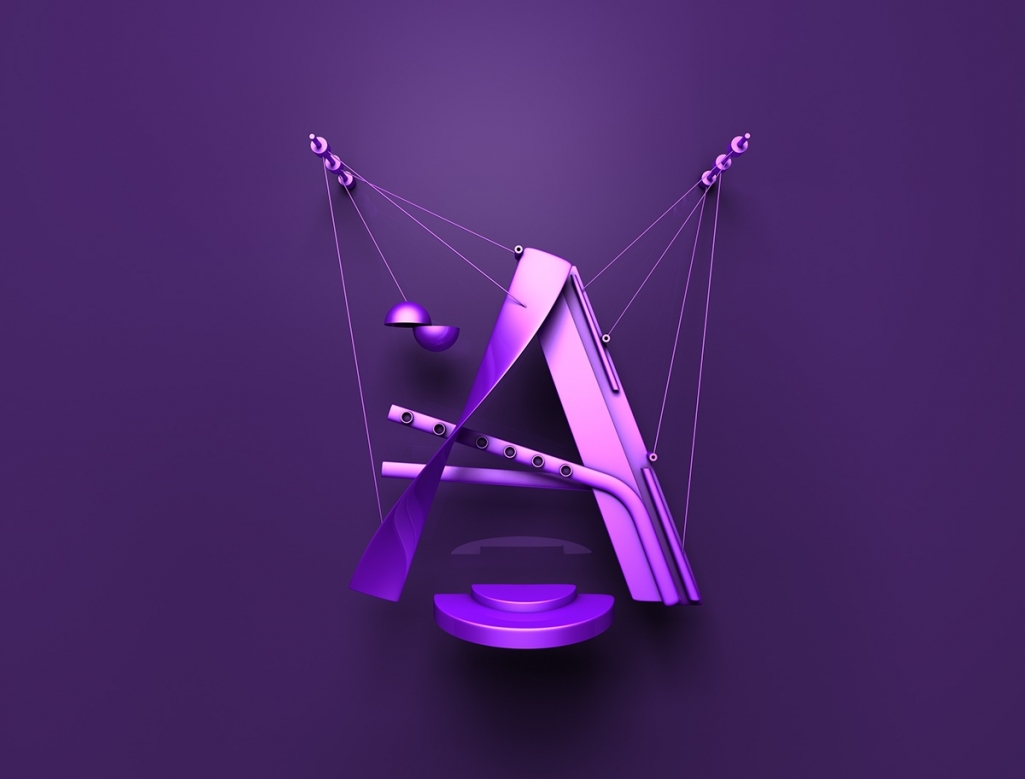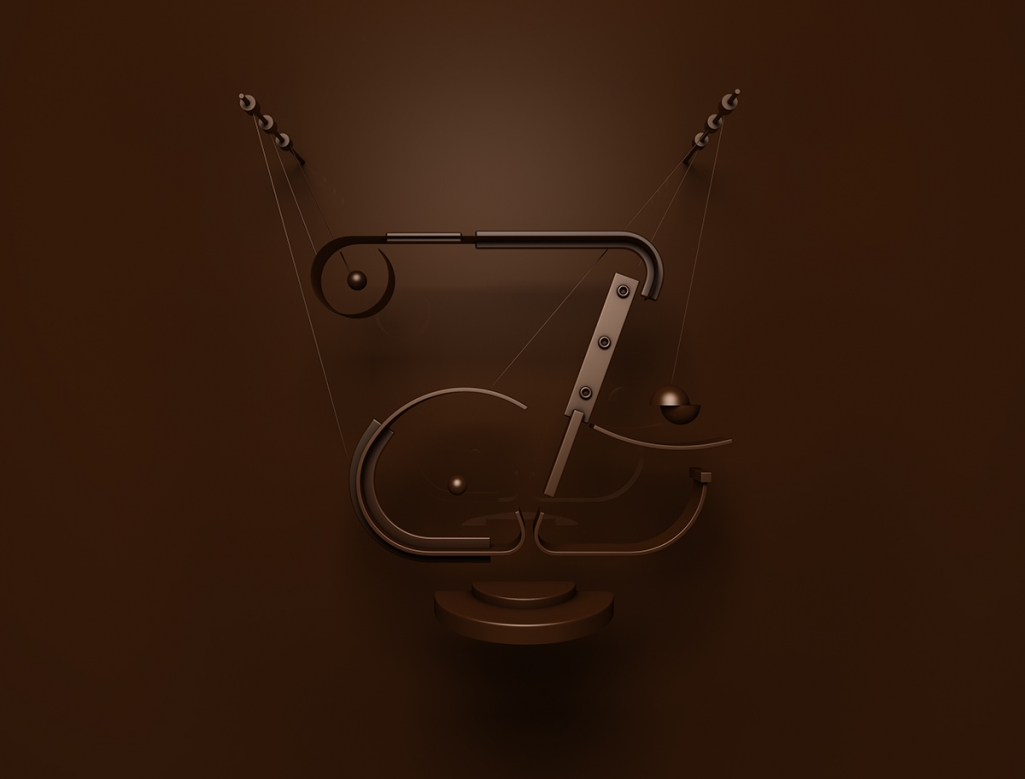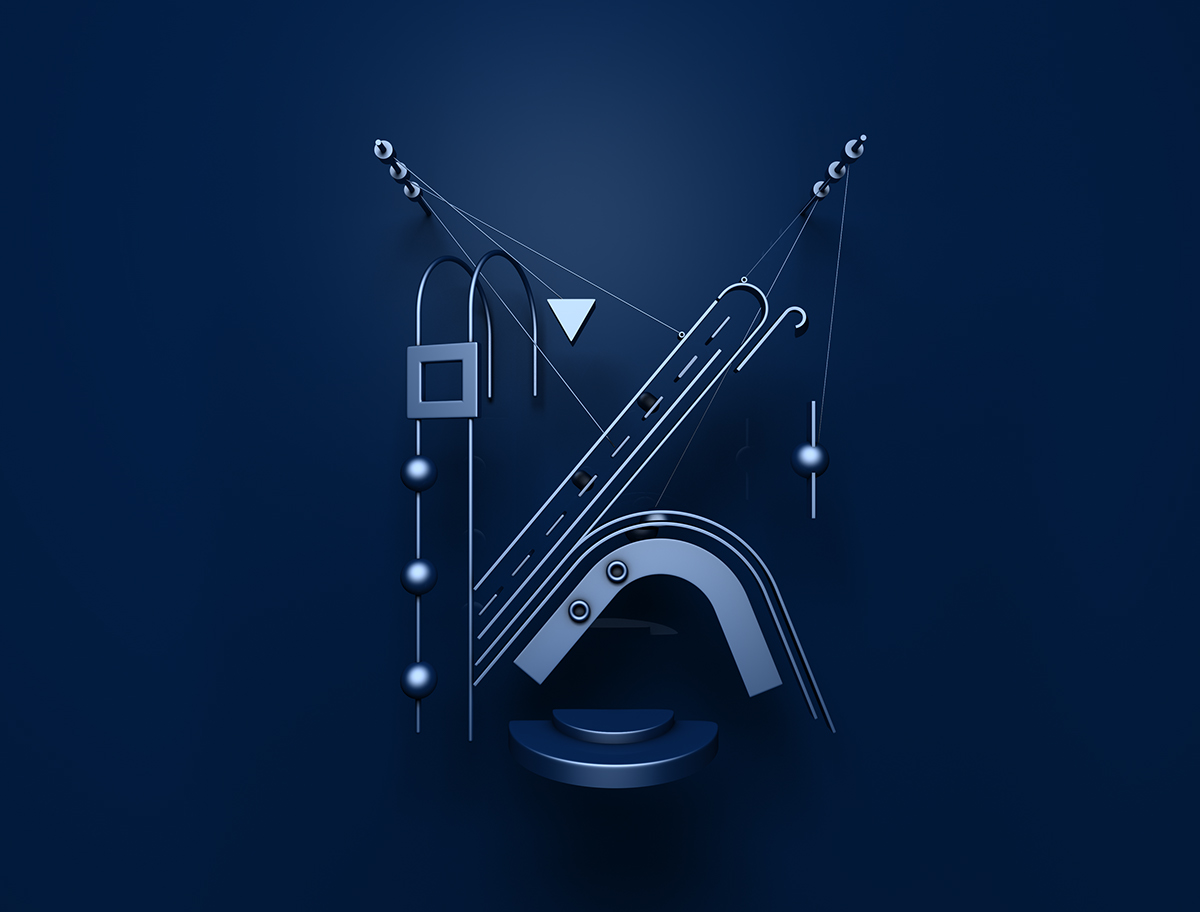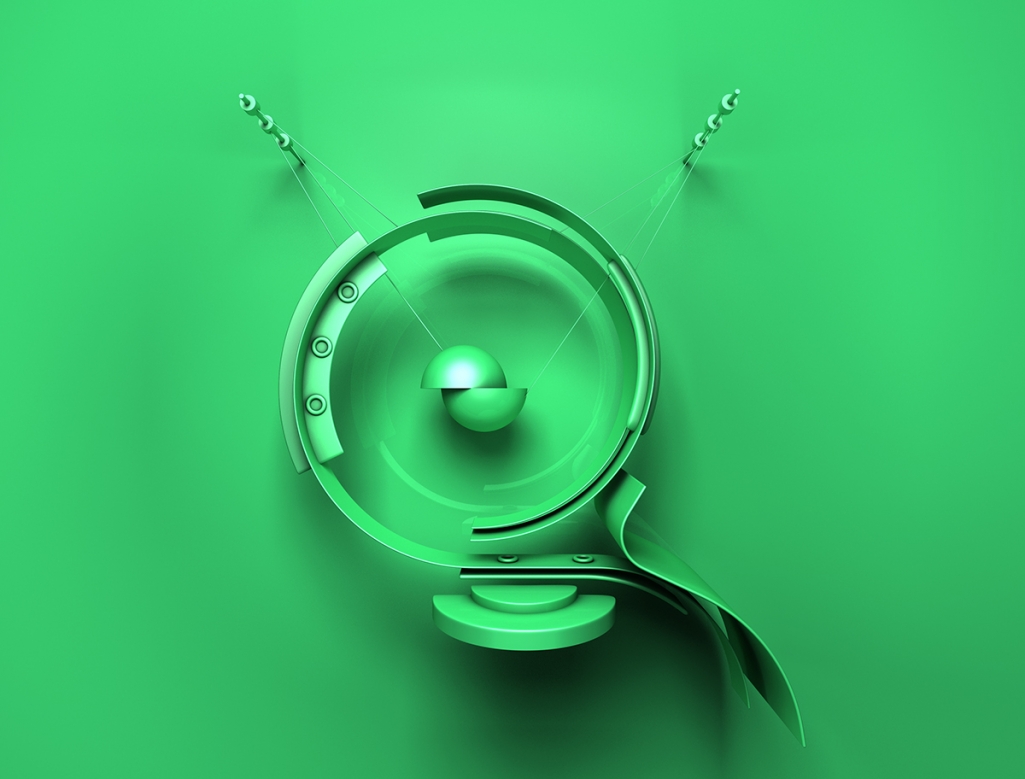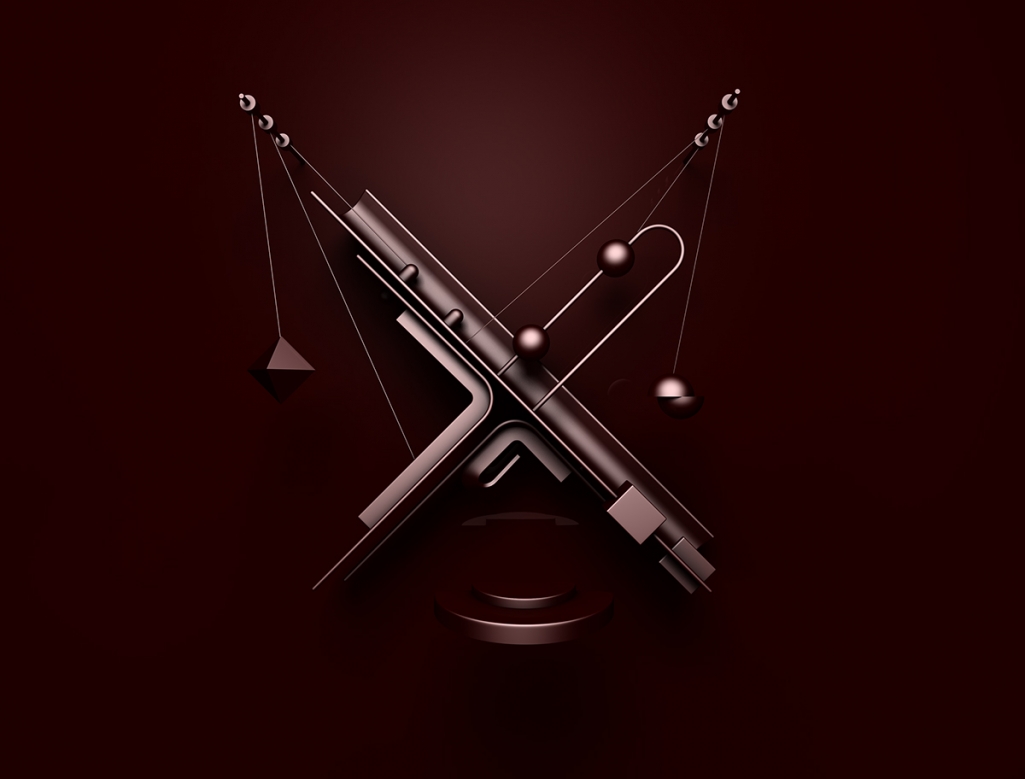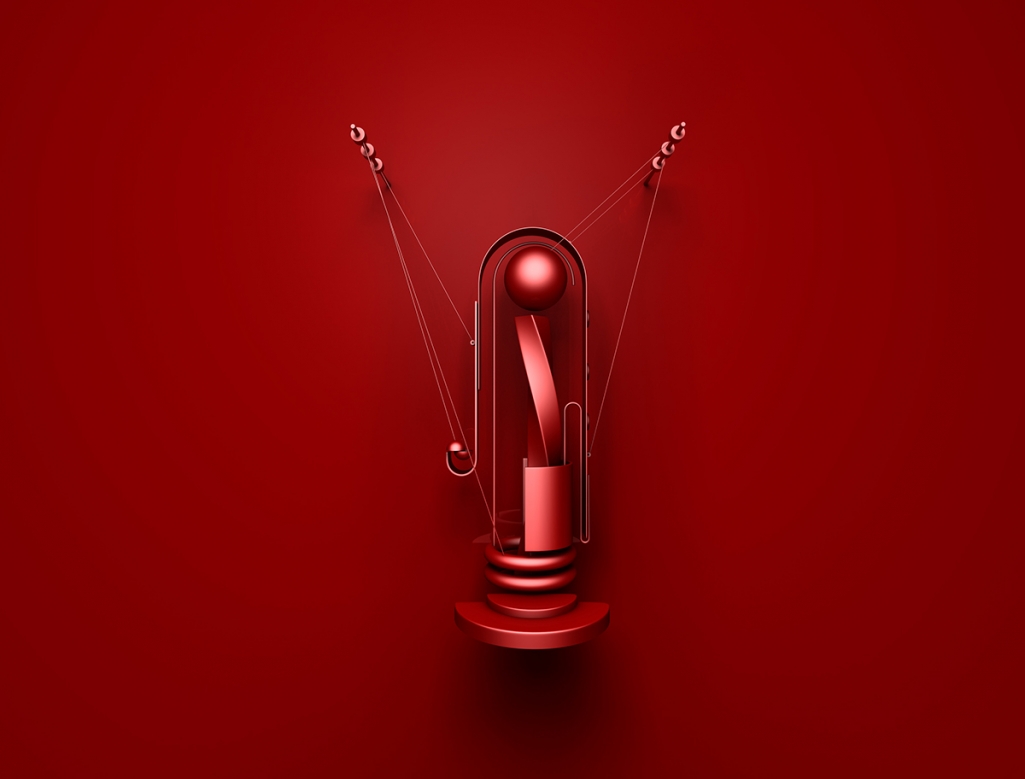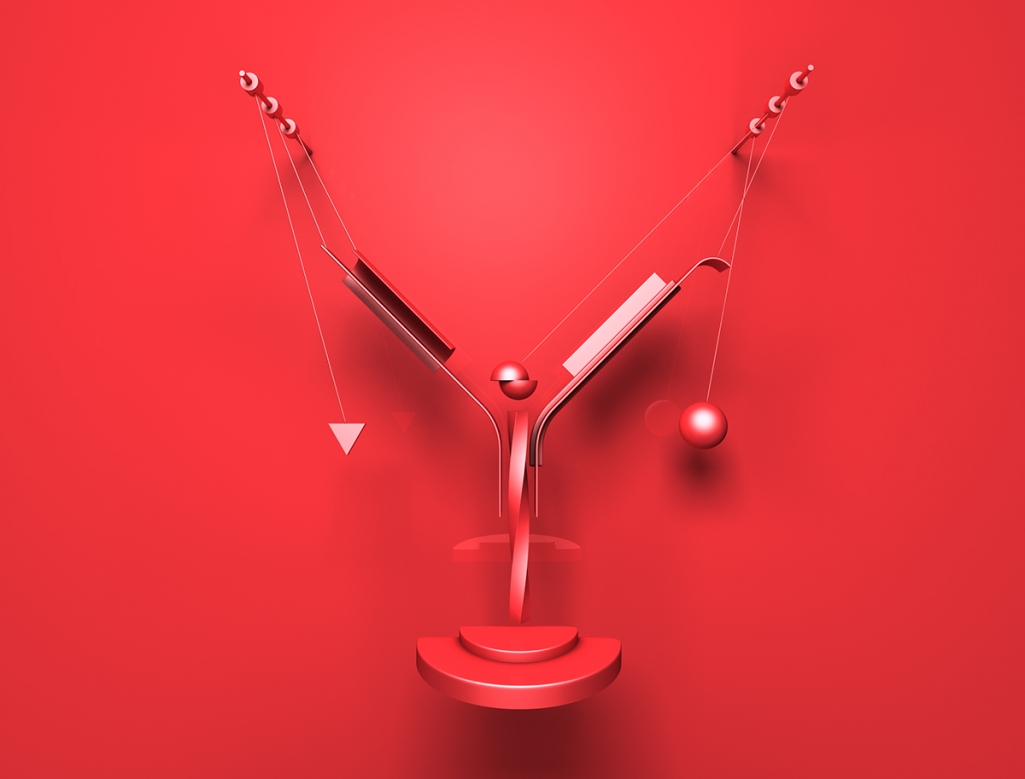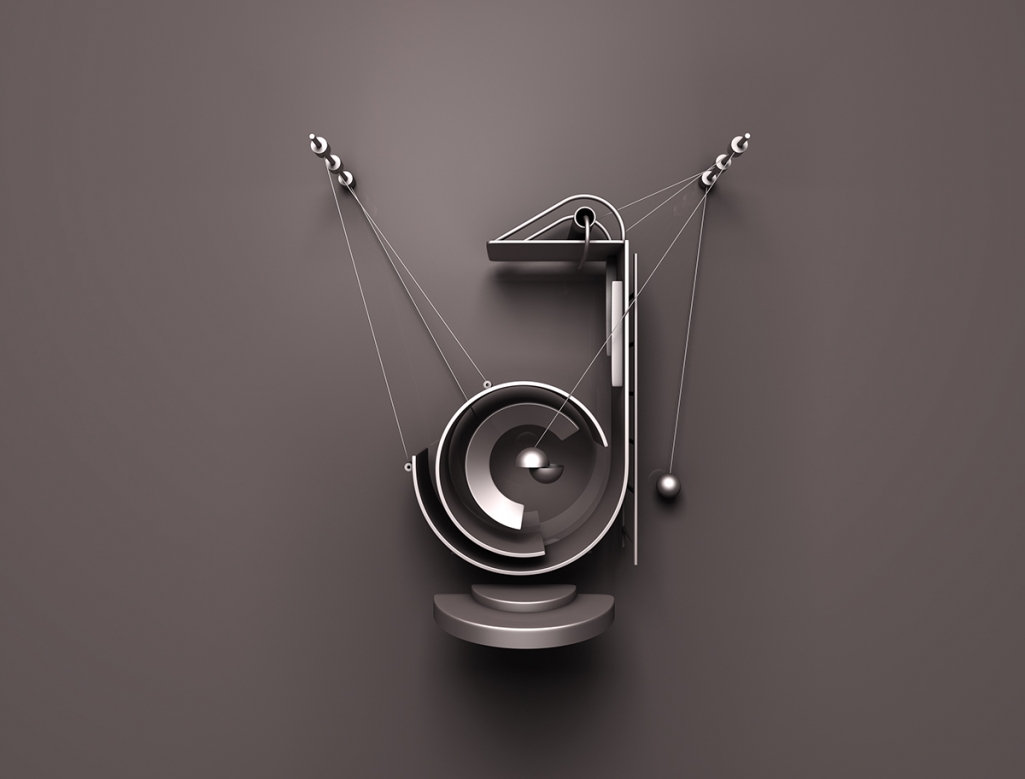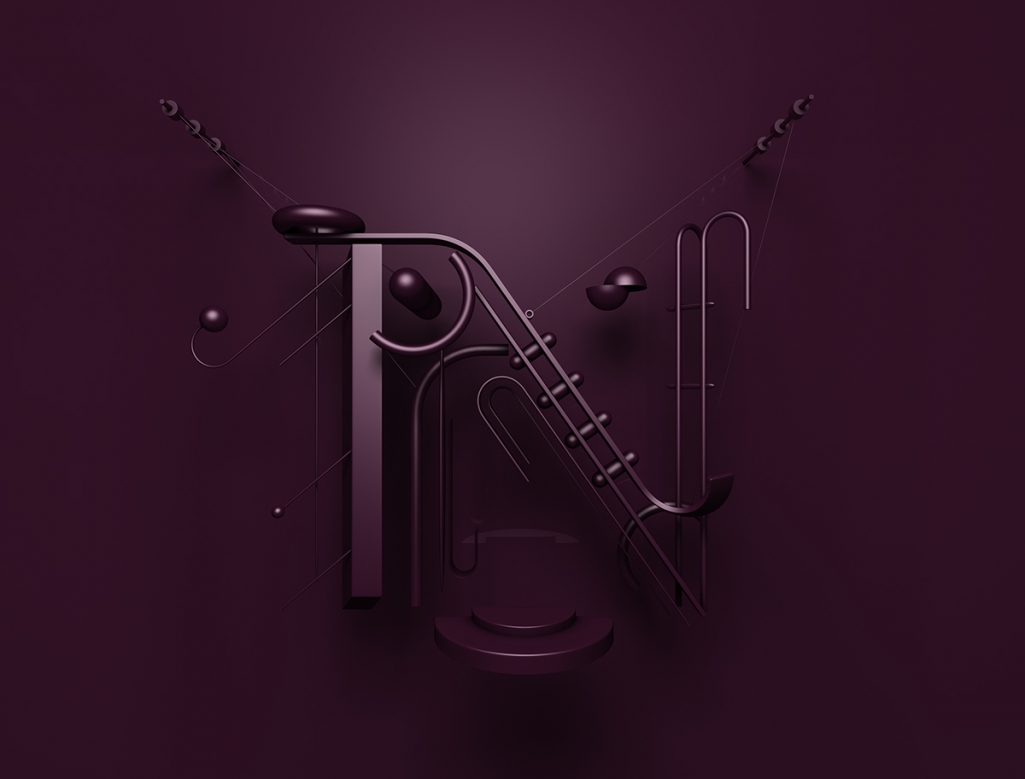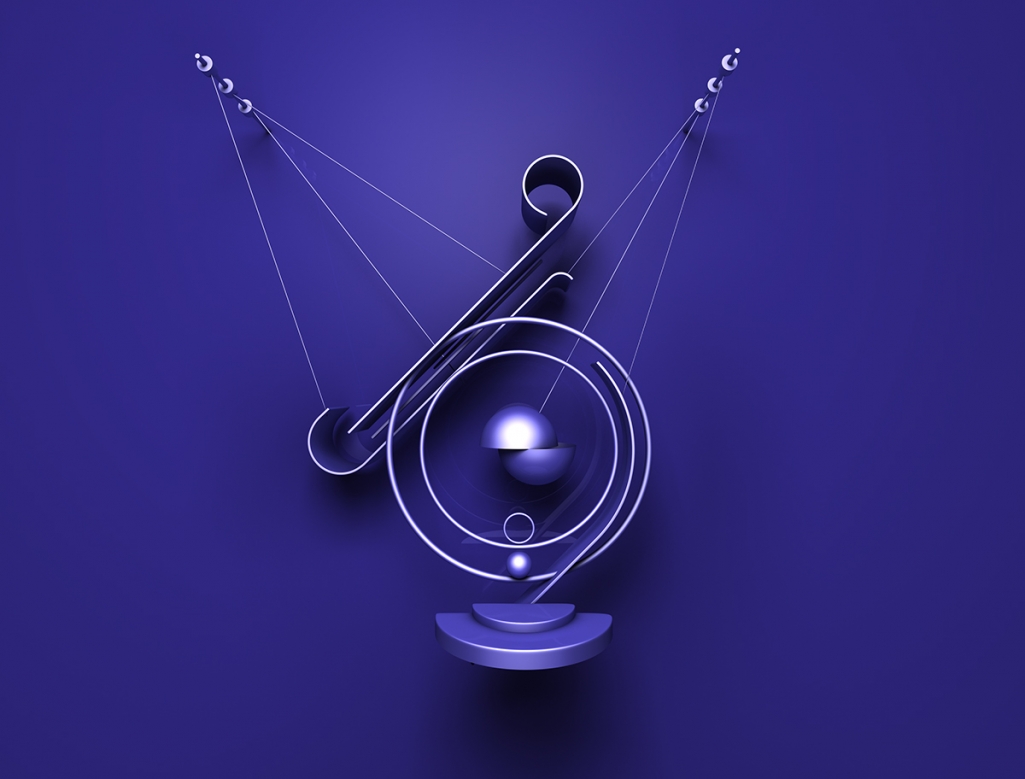
Typeface; a set of letters, numbers, etc., that are all in the same style and that are used in printing. This includes the classic font families ie. Garamond or Helvetica but also the more artistic, freehand or digitally creations ie. Shape by Jaroslav Hach. The right distinction and terminology of typography is often disputed, and I promise to dive deeper into the subject at another time. But now, I’d like to turn your attention to the masterfully created, unique and most of all, fun abstract typeface full of shapes and textures.
Running his own design studio Fresh Mill in Prague, Czech Republic, Jaroslav Hach specializes in web design, digital art, 3D illustration, and typography, working with a global client base. With a strong eye for detail and color, Hach creates dynamic designs with a flair for boldness and drama. Always working on personal projects to develop and train his personal style, he continuously builds on his set of skills. With an obvious interest in typography and typeface design, it was a hard choice which projects to feature. But his latest alphabet series Shape won me over with its clean and detailed look. Digitally created, and build of several shapes and imaginary objects, the letters are suspended in the air hanging from cables attached to two fixed posts, above a separate platform. The designs finished with shadows and all would perfectly fit for a groovy poster design. To see more of Hach’s work, visit his website or follow him on Instagram.